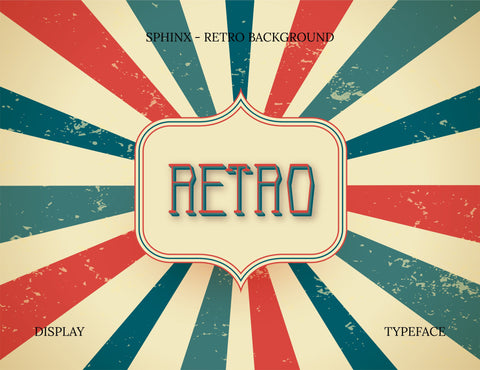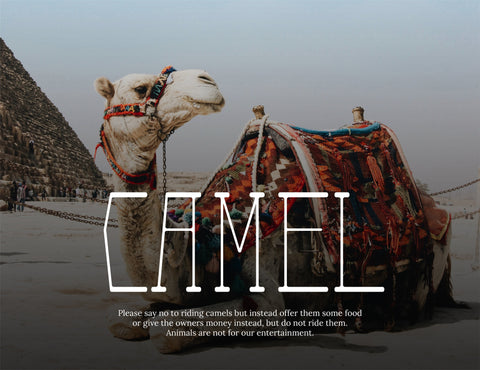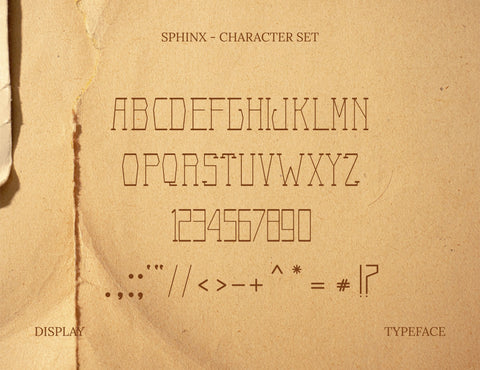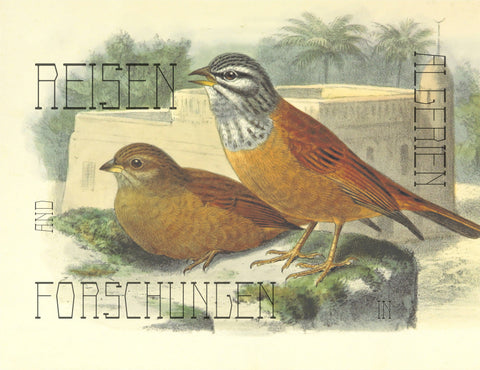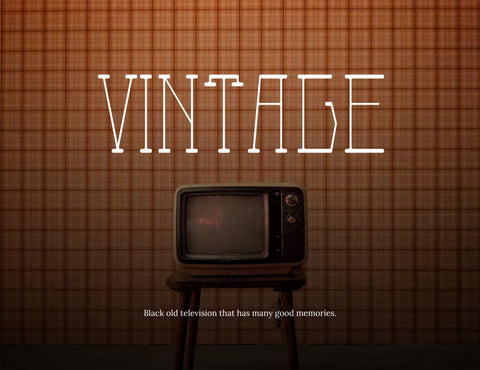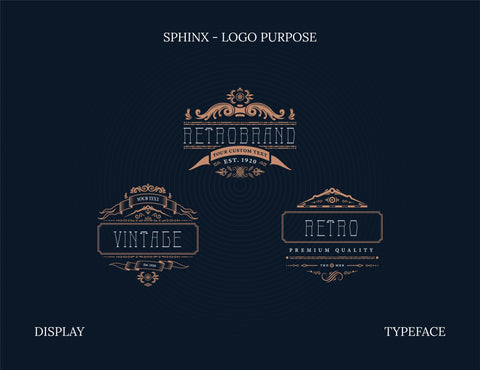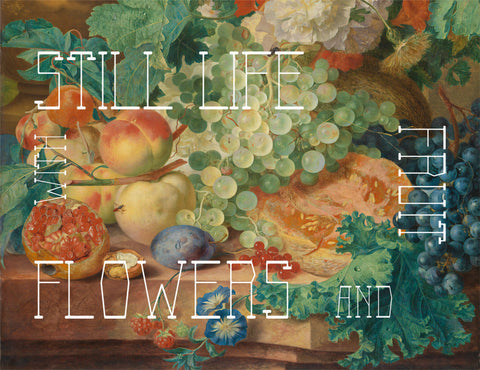
Sphinx Elegant Display Font
Sphinx is the one of Display Font which has Serif characteristic with ‘feet’ on it. Has firm characteristic, great thickness consistency, also bring old retro vintage vibes, so that it is appropriate for design logo, poster, fashion, etc. Sphinx is inspired by Sphinx monument which be the one of iconic on the Egypt, it bring special impression, old, and strong as the Sphinx font characteristics.